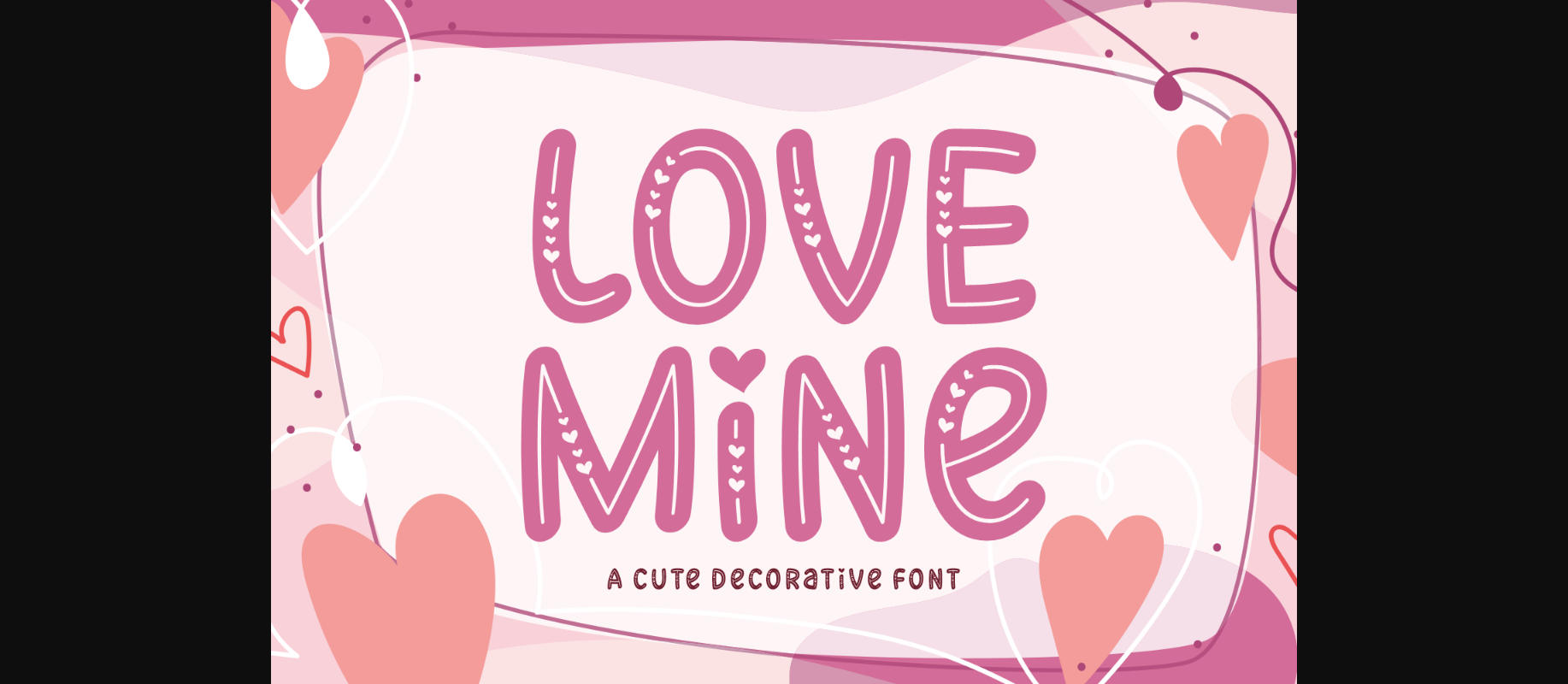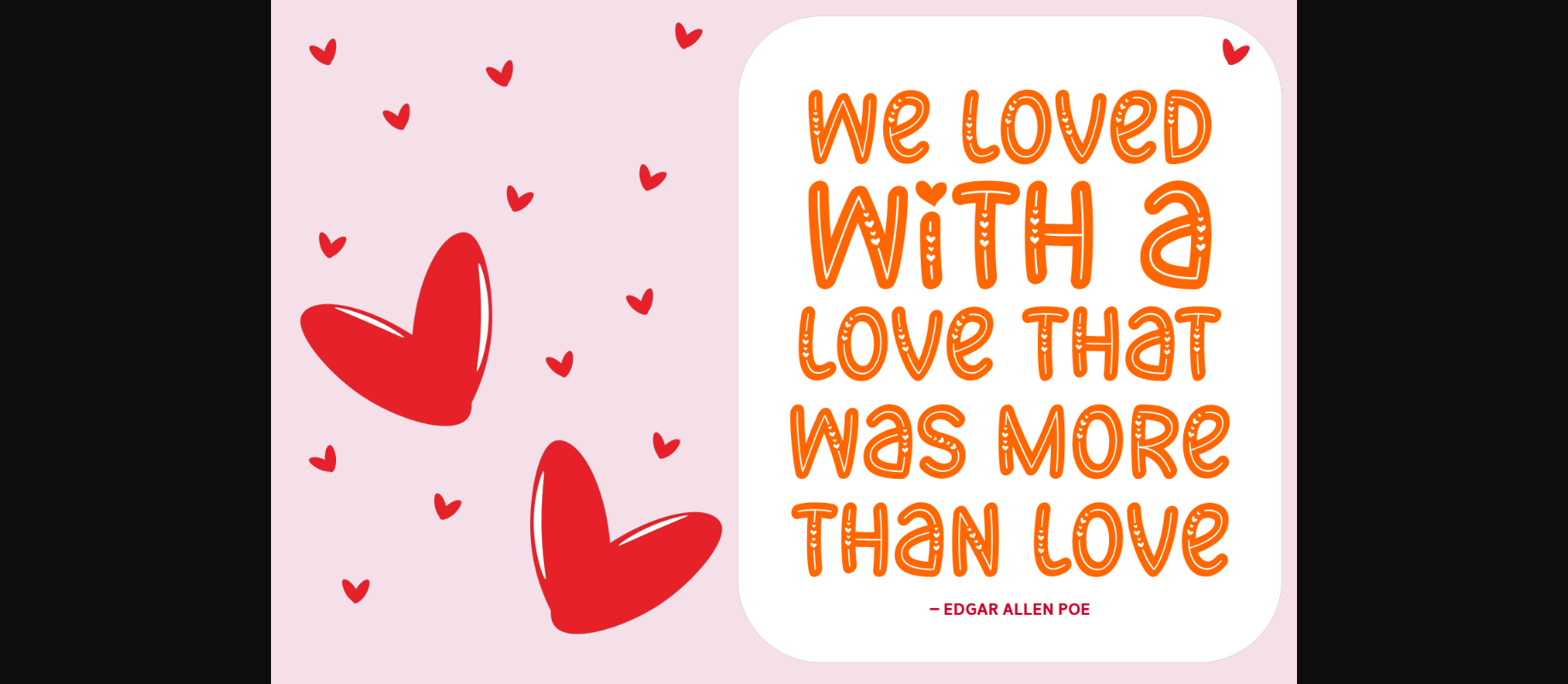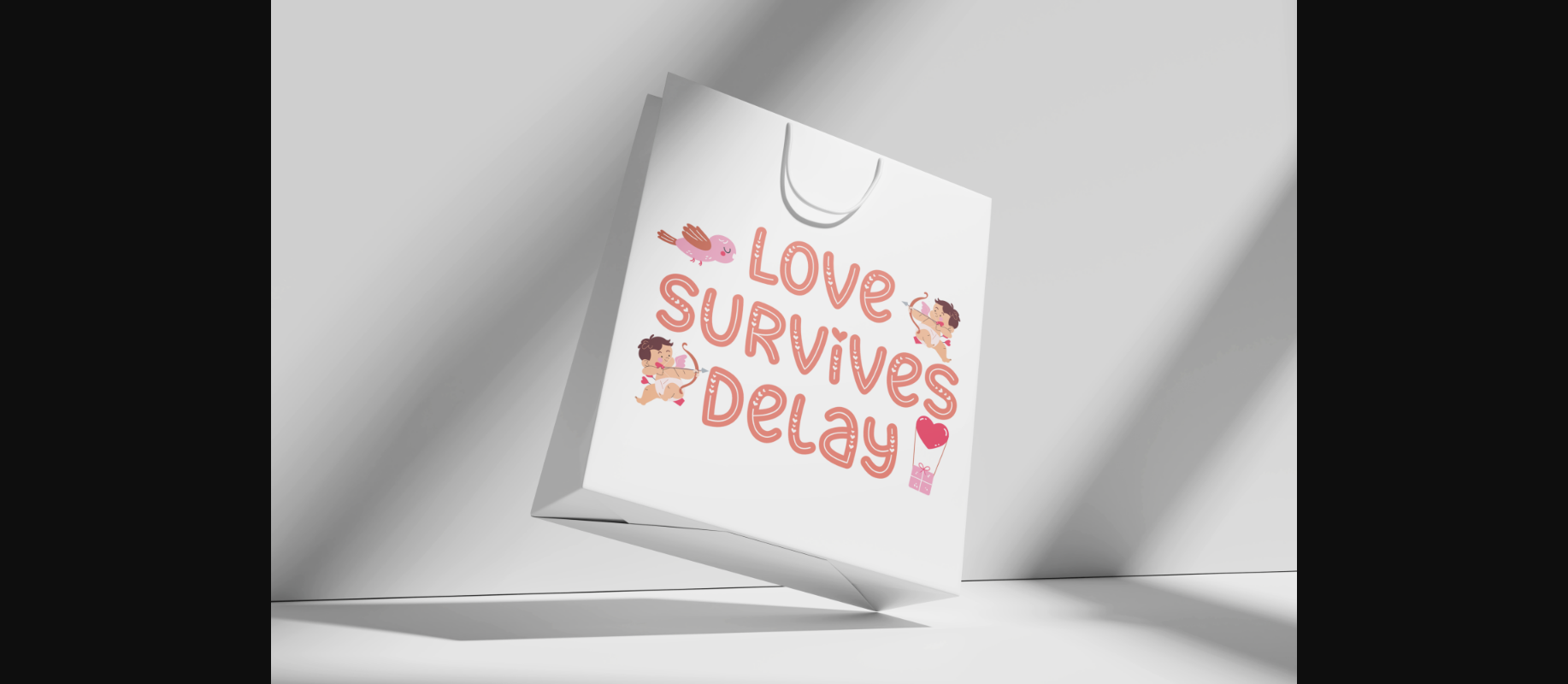
About Love Mine Font
Love Mine is an adorable decorative font sprinkled with tiny hearts, adding a sweet touch to your projects. Its cute and playful style makes it perfect for crafting heartfelt messages, invitations, or anything that needs a dash of love. Bring warmth and charm to your designs with Love Mine, where every letter is a little love note.